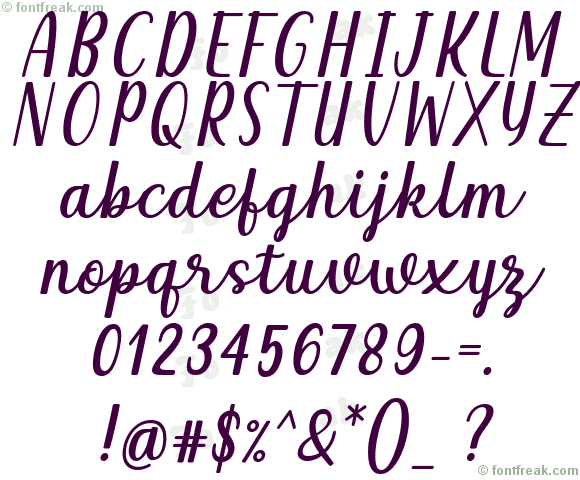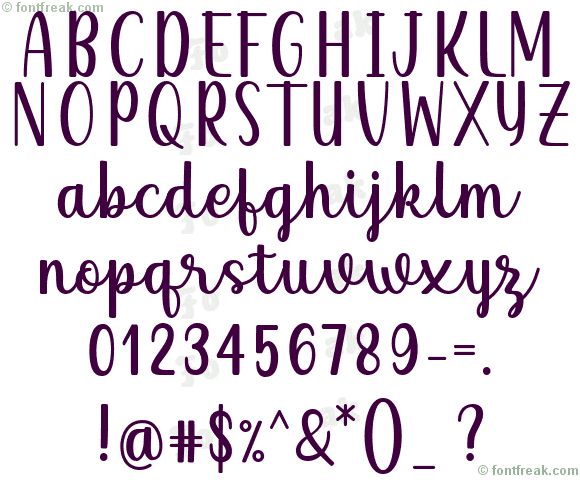
Qeiza Italic
Qeiza
About Qeiza Italic
Qeiza Italic is a beautifully crafted script font designed by Situjuh Nazara, released under a freeware license. This font falls into the display category, showcasing elegant, flowing letterforms that make it ideal for a variety of creative applications. Its graceful curves and stylish slants provide a sense of movement and sophistication, making it a versatile choice for both formal and casual designs.
Visually, Qeiza Italic features a medium stroke weight, with a smooth contrast that enhances its legibility while maintaining an artistic flair. The spacing between characters is well-balanced, allowing for easy reading and a polished appearance. Decorative elements, such as the playful loops and swashes, add a touch of whimsy, making this font perfect for projects that require a personal and inviting touch.
This font is particularly suited for wedding invitations, where its romantic style can convey the joy of the occasion. It also shines in branding for artisanal cafes or boutique shops, where a unique identity is essential. Additionally, Qeiza Italic can elevate movie posters, lending a dramatic flair that captures attention. Content creators will find it useful for social media graphics, as its aesthetic can enhance visual storytelling.
The target audience for this font includes graphic designers, small business owners, and content creators looking to add a unique touch to their work. Whether you’re crafting an elegant invitation or designing eye-catching promotional materials, Qeiza Italic offers a distinctive option.
In conclusion, Qeiza Italic stands out due to its unique blend of elegance and playfulness. Its design not only captures attention but also evokes emotion, making it an excellent choice for those seeking to create memorable and impactful designs. Don't miss the opportunity to explore the Qeiza Italic font free download and elevate your creative projects.